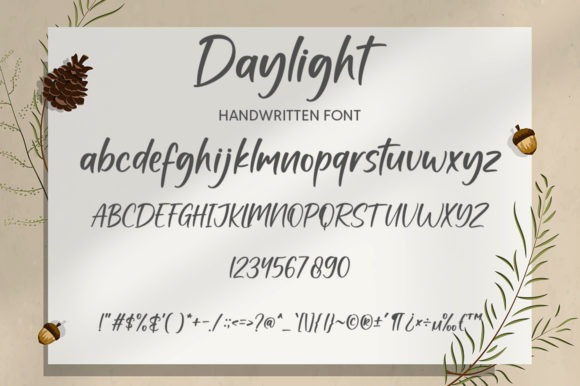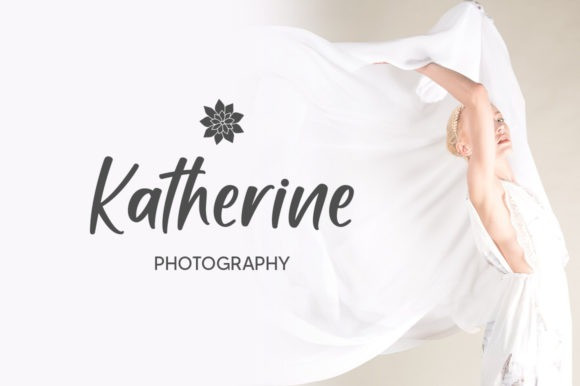
Daylight Font
Daylight Font is a delicate and simple-lettered handwritten font, perfect for all the chalkboard quotes and teaching materials you wish to create! Its authentic look will add a personal and realistic feel to your designs.